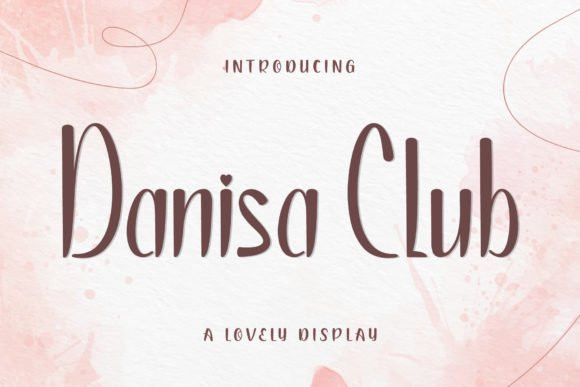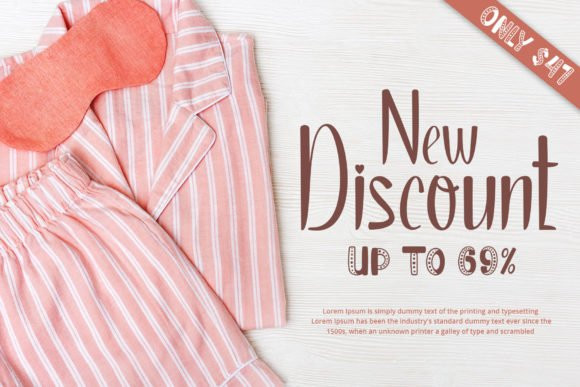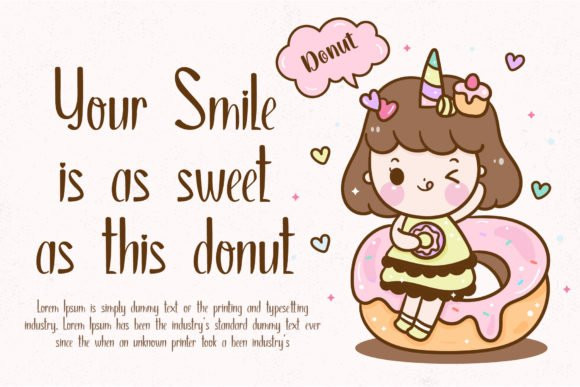
Danisa Club Font
Danisa Club is a tall and classic script font. This font can be used for products such as baby designs, crafts, product packaging, quotes, product designs, labels, photography, watermarks, logos & branding.